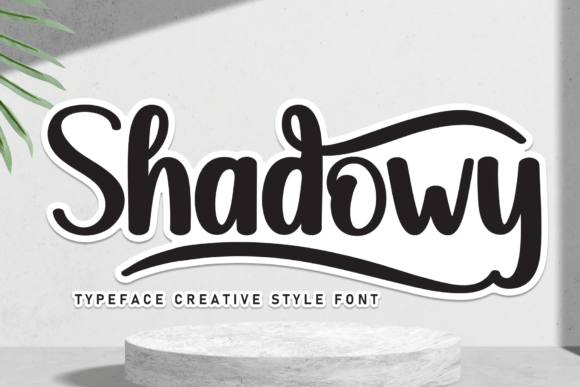
Introducing Shadowy Font, a captivating handwritten display font that dances across your screens with its sweet and friendly demeanor. Step into a world of charm and lighthearted delight as Shadowy unveils its playful nature, adding a touch of whimsy to any project it adorns.
Crafted with precision by William Jhordey, Shadowy belongs to the script font family, making it a perfect choice for designers and artists seeking a font that exudes charm and character. Its delicate strokes and playful curves mimic the effortless flow of a heartfelt handwritten note, evoking a sense of warmth and authenticity in your creations.
Immerse yourself in the versatility of Shadowy, a font that effortlessly adapts to a myriad of projects. Whether you seek to create captivating wedding invitations that reflect the joy and romance of your special day, or design heartwarming cards that convey your heartfelt sentiments, Shadowy stands as your steadfast companion, transforming your words into enchanting expressions of art.
With Shadowy, the possibilities are limitless. Craft eye-catching logos that leave a lasting impression, design social media posts that radiate positivity and engagement, or create captivating website designs that invite users to embark on an unforgettable journey. The sky's the limit as Shadowy unleashes your creativity and elevates your designs to new heights.
Don't let your designs settle for ordinary when you can infuse them with the magic of Shadowy. Let your imagination soar as you discover endless possibilities, transforming your projects into captivating works of art. Embrace the allure of Shadowy and witness the transformation it brings to your creative endeavors.